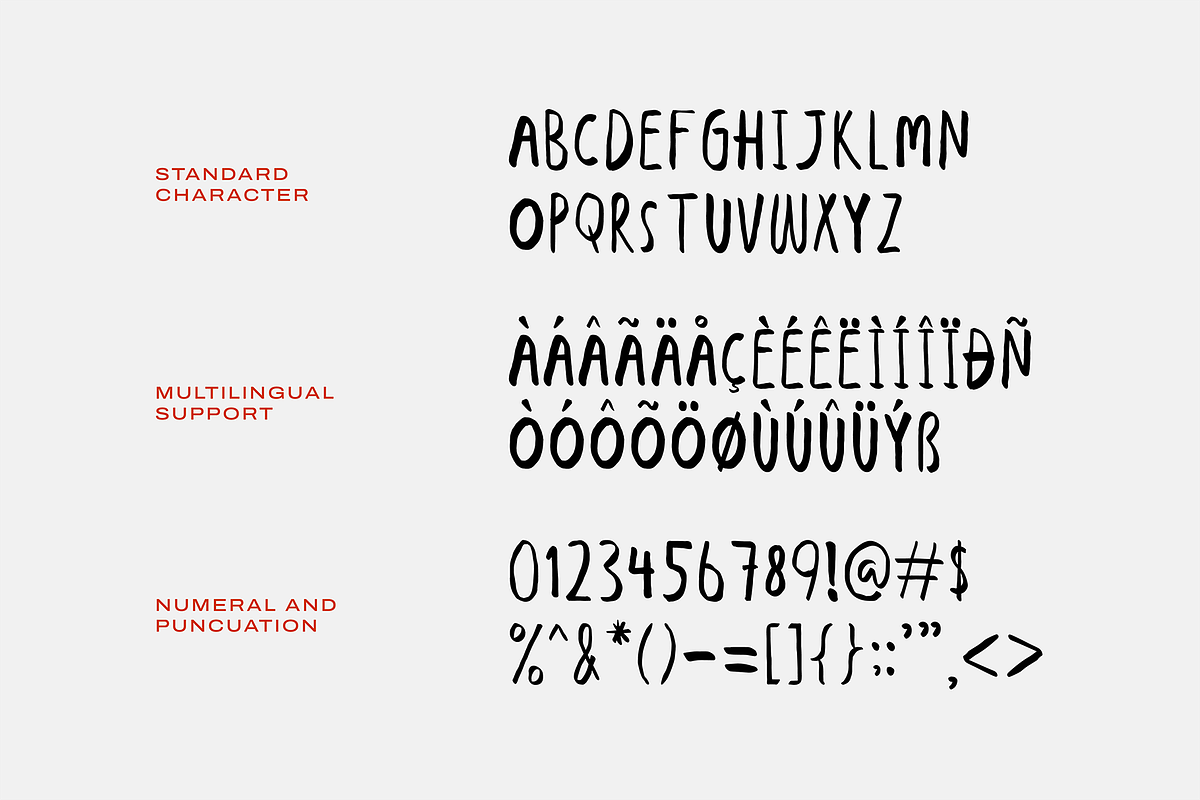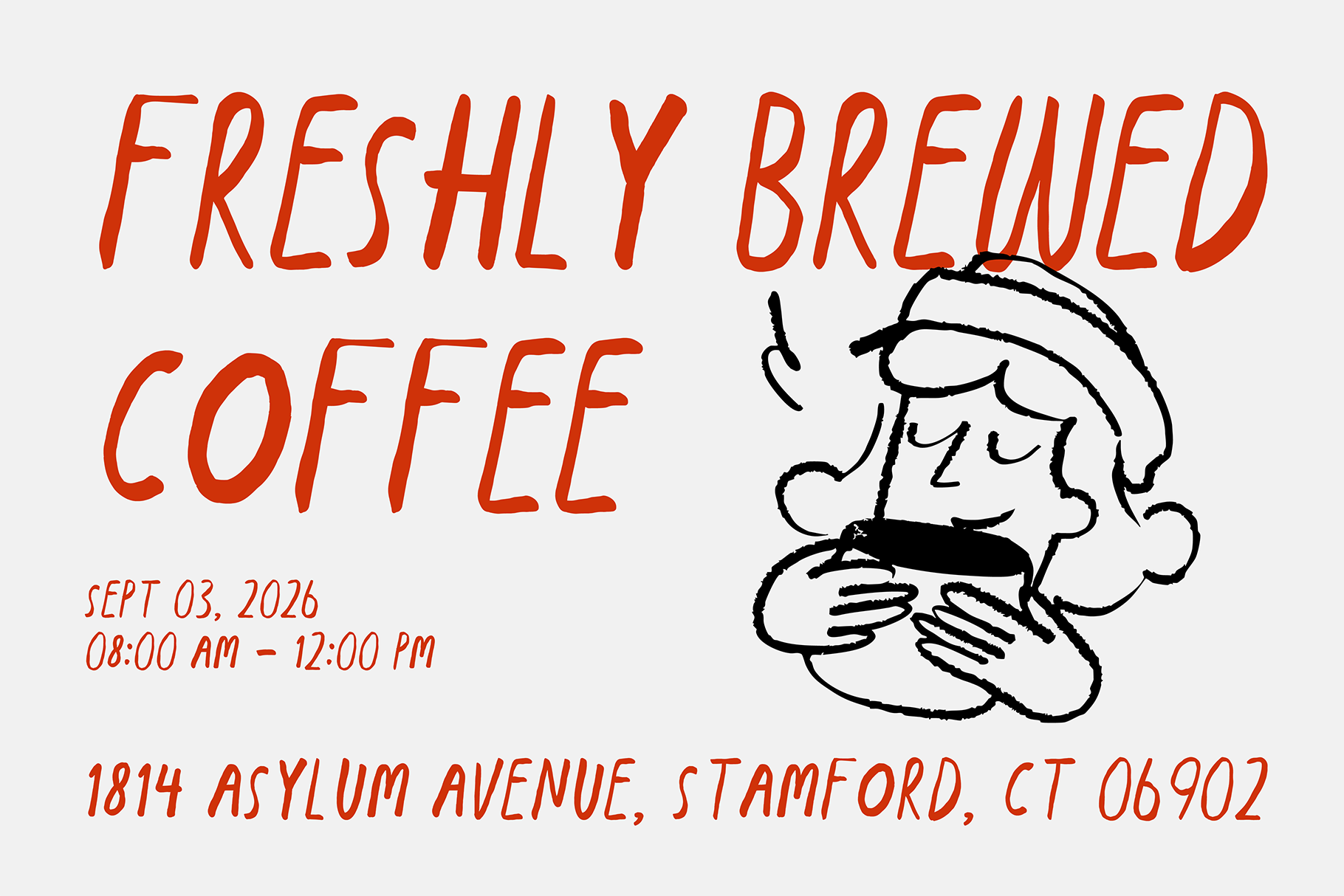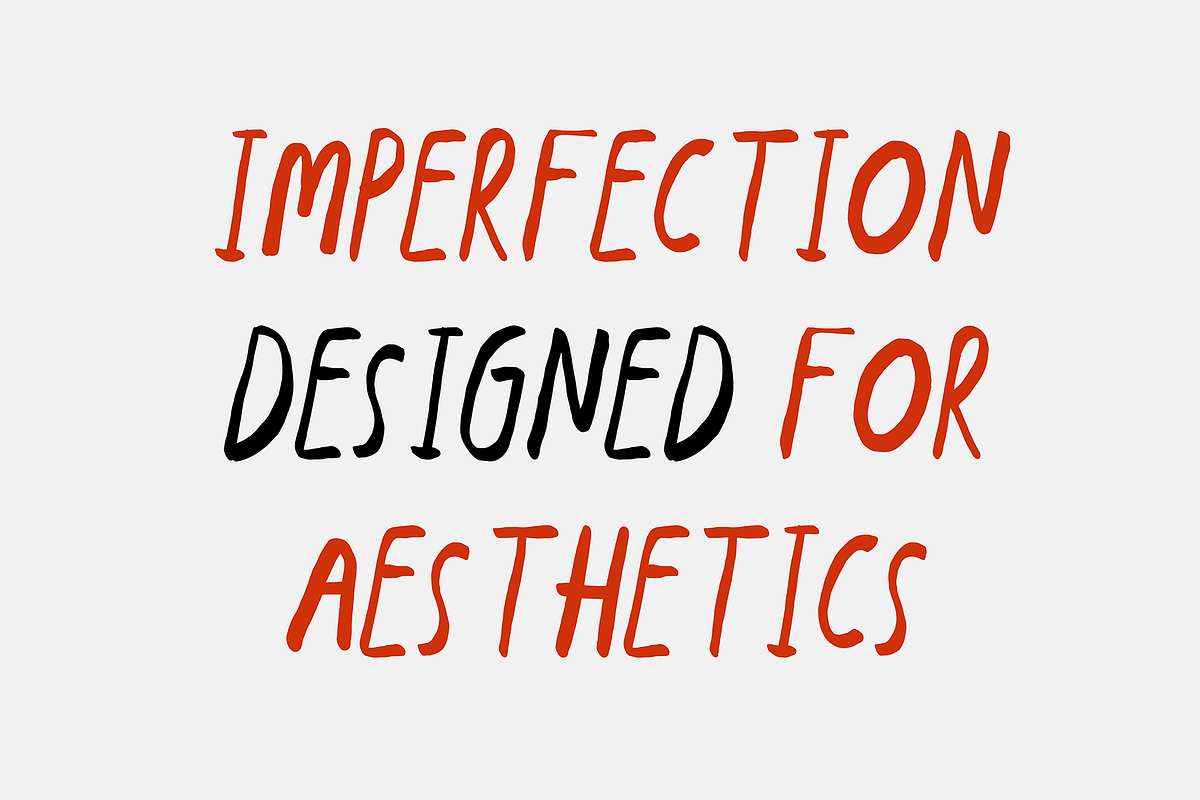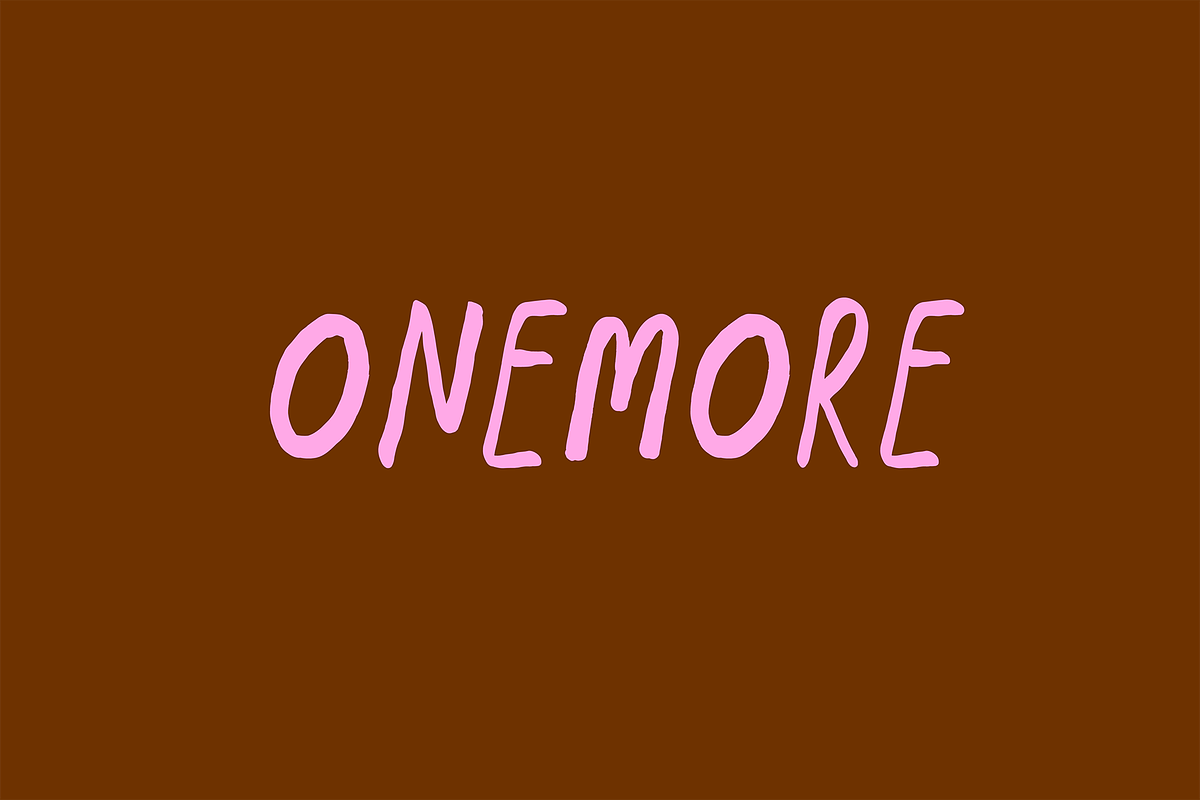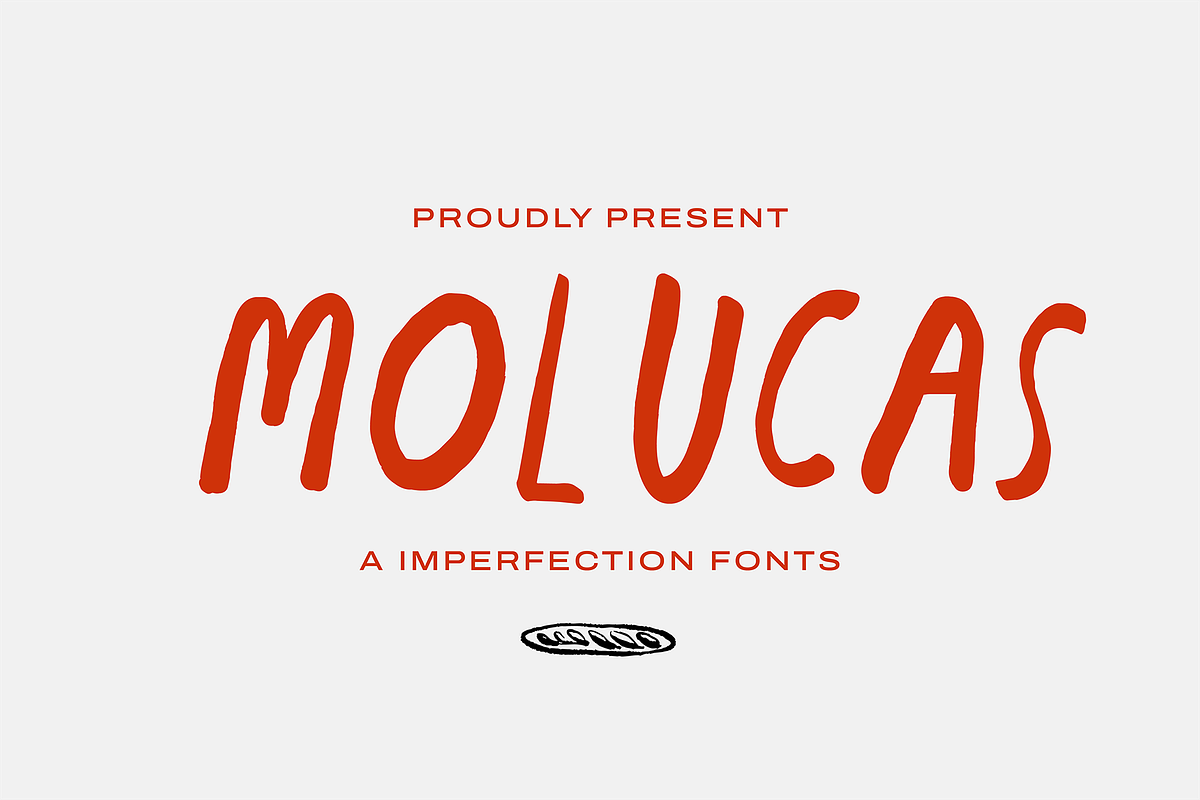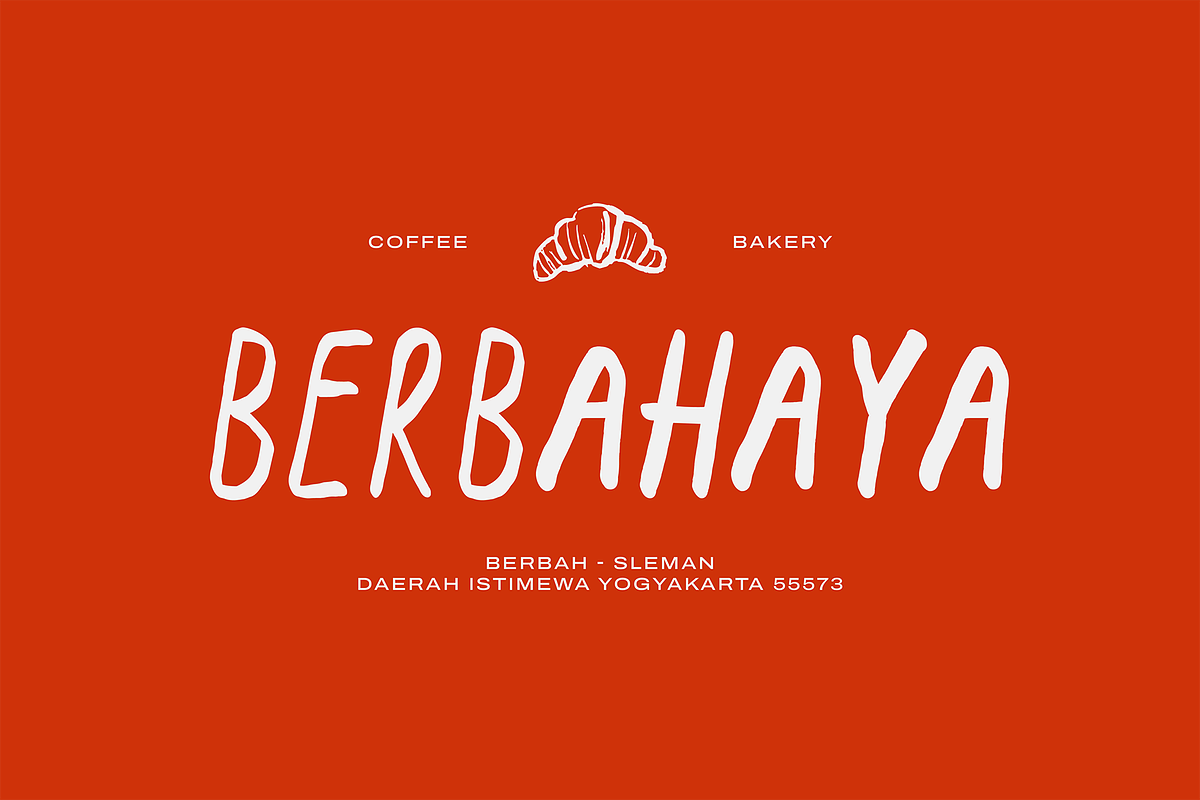
Molucas - Imperfection Fonts
MOLUCAS — An Imperfection Font
Say hello to MOLUCAS, a hand-drawn typeface created to celebrate imperfections. With its organic strokes, uneven shapes, and naturally rough character, MOLUCAS brings a raw and expressive personality to your designs. It is intentionally imperfect—because sometimes the little flaws are what make a design feel more human.
MOLUCAS is perfect for projects that need a playful, authentic, and handcrafted touch. Use it for branding, posters, packaging, apparel, editorial designs, social media graphics, quotes, logos, album artwork, and creative campaigns.
Its loose and spontaneous appearance makes every word feel like it was drawn by hand, giving your designs a distinctive personality without feeling overly polished.
Embrace the imperfections. Make something that feels human.
MOLUCAS — designed imperfectly, made beautifully.